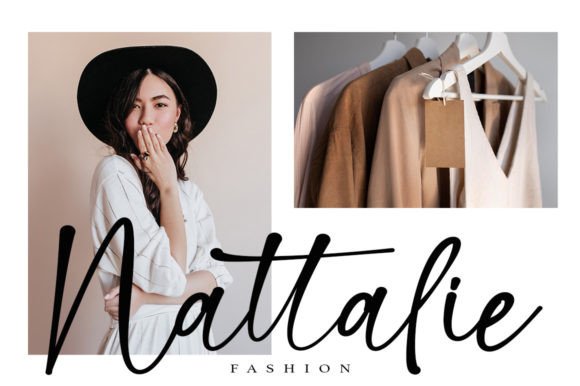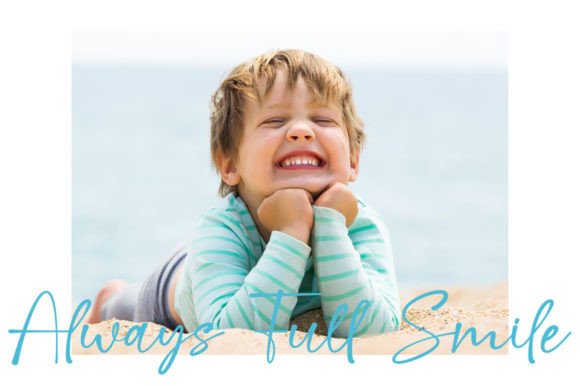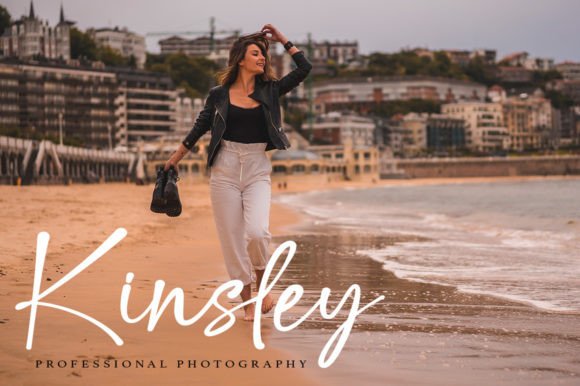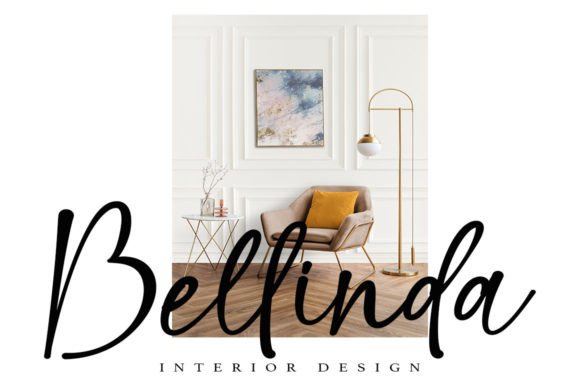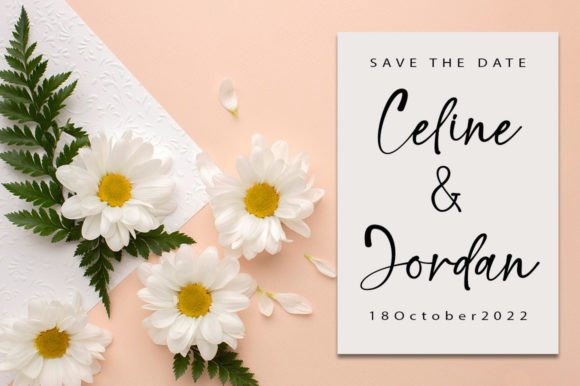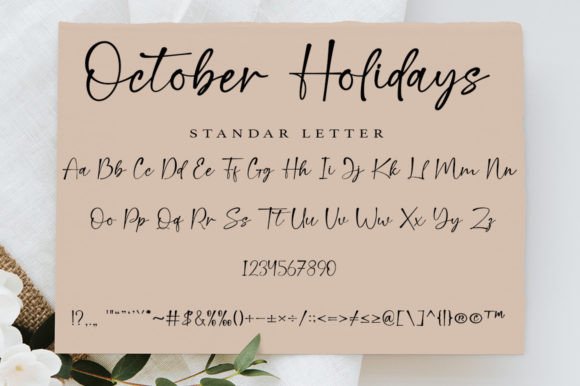
Introduction to October Holidays Font
October Holidays is a lovely and delicate script font that exudes elegance and class.
This font was particularly crafted for those who need a beautiful and refreshing look to their designs .
Key Features of October Holidays Font
Why Choose October Holidays Font?
October Holidays Font offers exceptional quality and versatility, making it a valuable addition to your design toolkit. Whether you’re creating for personal projects or commercial use, October Holidays Font delivers professional results.